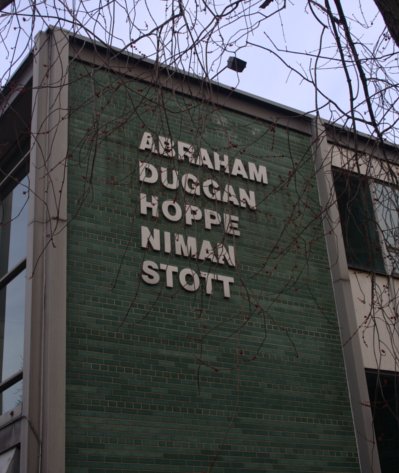
Abraham Duggan Hoppe Niman Stott
This sign is simple and enigmatic: five names in alphabetical order, each one occupying less space than the last. No hint about what the list signifies. If you don’t already know, it’s up to you to find out. That reticence is surprisingly effective and the unadorned typography adds to the impact.
Say the list aloud and it has an ominous sound, like an incantation. What mysteries await behind this green brick wall?
now that’s abstract art! especially well balanced against the brick texture.
It’s striking, isn’t it? There’s an art to marrying type and architecture, and this is one of the better examples in the city.